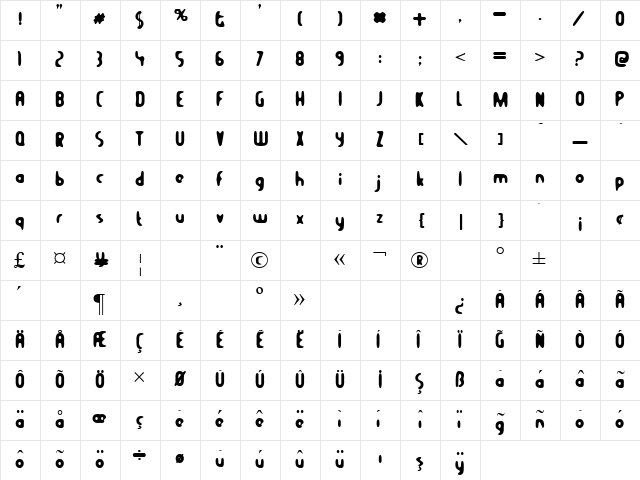
TR Balcony Angels Regular
Design Context for TR Balcony Angels Typeface
TR Balcony Angels offers clean, dependable letterforms without strong stylistic allegiance, making it a practical choice for designers who need flexibility.
Pro Tip: Use TR Balcony Angels in both headline and body roles to test its range before committing to a single application.